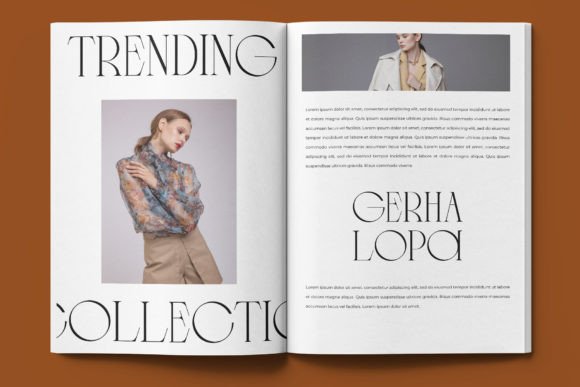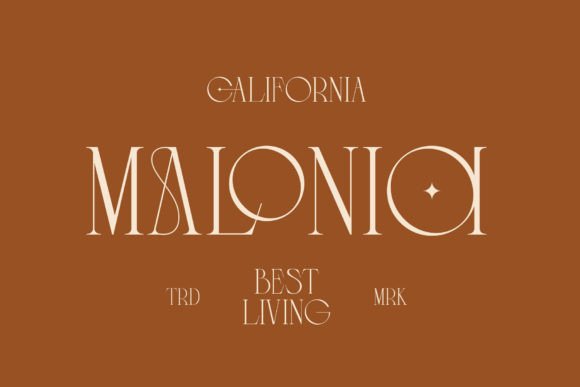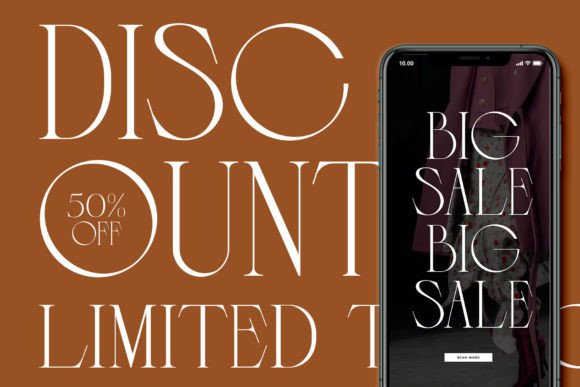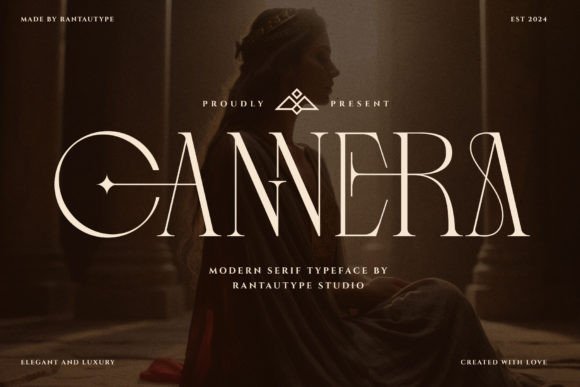
The Elegance of Cannera Font: A Designer’s New Best Friend
I still remember the design project that led me to discover Cannera Font. I was working on a luxury brand’s editorial piece, and I was on a mission to find the perfect font that exuded elegance and sophistication. Hours of scrolling through font libraries and testing out different options had me feeling like I was stuck in a design rut. That was until I stumbled upon Cannera Font, and it was love at first sight! 💕
An Honest Review of Cannera Font
• ✨ Refined serifs that add a touch of luxury to any design
• ✅ Well-proportioned letterforms that ensure excellent readability
• 💯 Perfect blend of classic elegance and modern sophistication
• 🎨 Highly versatile, making it suitable for branding, editorial work, and luxury designs
While Cannera Font is an excellent choice for many design projects, there are a few things to keep in mind:
• ⚠️ Some users have reported issues with kerning, particularly with certain letter combinations. It’s essential to review your text carefully to ensure optimal spacing.
• 🤔 The font’s elegance may not be the best fit for very casual or playful designs. It’s perfect for projects that require a level of sophistication.
The Backstory of Cannera Font
Cannera Font was designed with the intention of creating a font that embodied the perfect blend of classic elegance and modern sophistication. The designer aimed to create a font that would be versatile enough to use in a variety of design projects, from luxury brands to editorial work. The result is a font that exudes timeless beauty and grace, making it an excellent choice for designers looking to add a touch of class to their projects.
Q: What type of projects is Cannera Font best suited for?
A: Cannera Font is perfect for branding, editorial work, and luxury designs. Its elegant and refined feel makes it an excellent choice for projects that require a level of sophistication.
Q: Is Cannera Font suitable for body text?
A: While Cannera Font is elegant and refined, it may not be the best choice for body text due to its serif nature. However, it can be used for body text in certain contexts, such as luxury editorials or high-end publications.